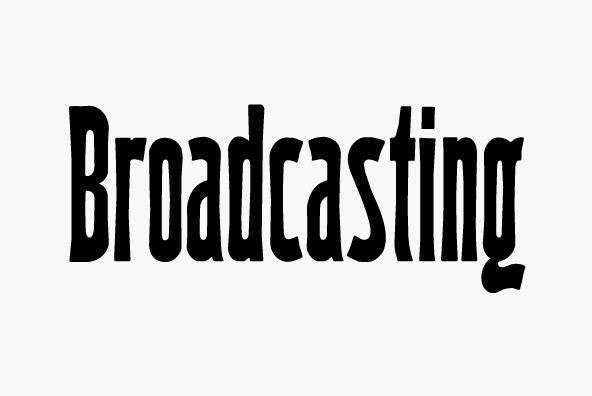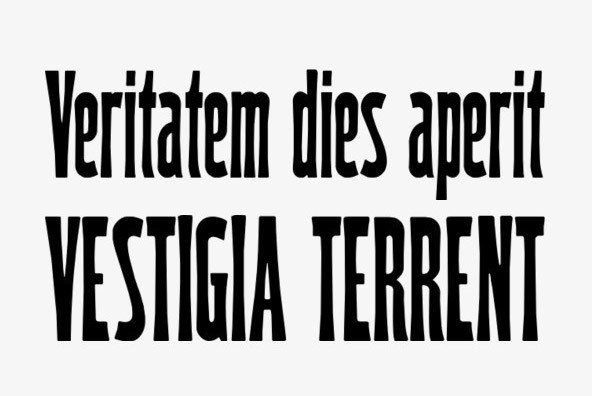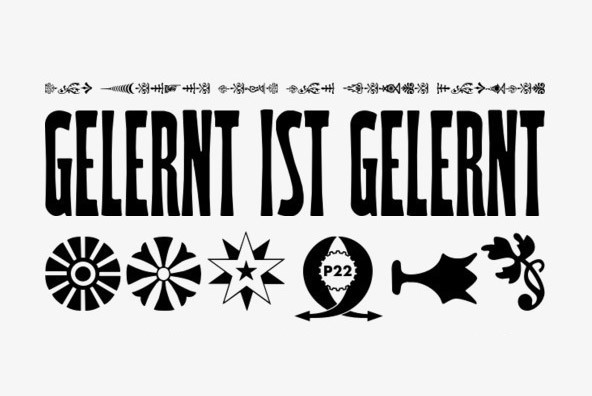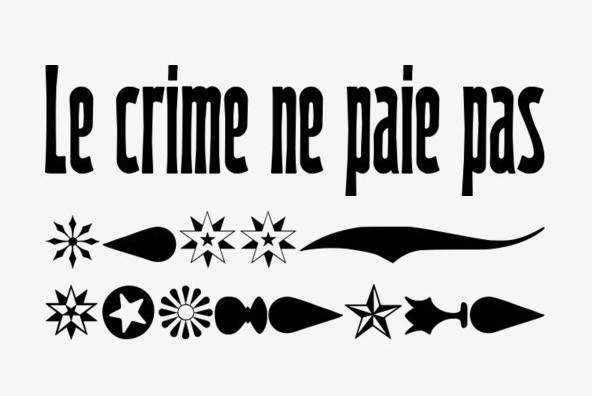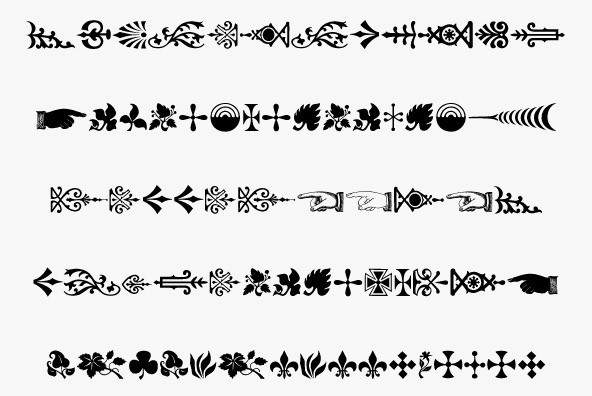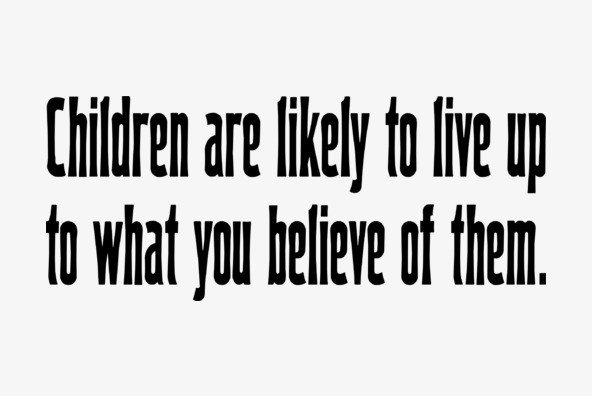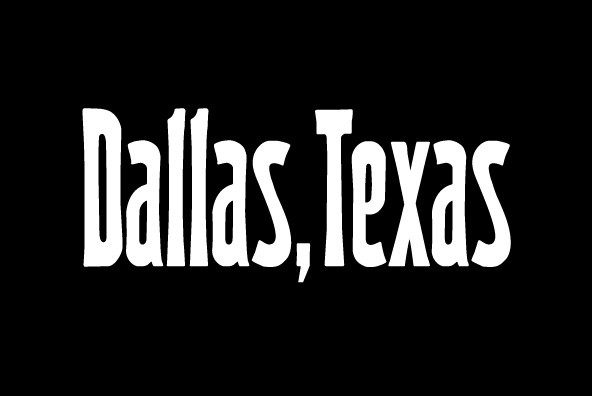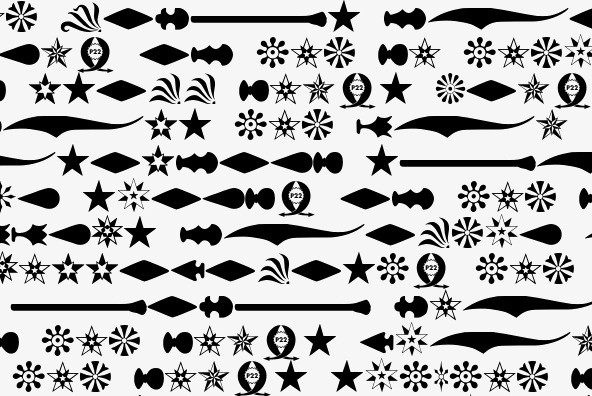
P22 Woodtype Set
Based on a rare specimen of an American Wood Types from the late 1800s, this condensed font conjures up 19th Century Americana but offers many potential design possibilities. The small caps font is based on a variation of the same basic design and was digitally modified to function as a small cap companion to the "regular" font. The exact origin and naming of 19th century wood-type is often confusing due to the hundreds of designs and variations offered. These fonts were originally made in wood by the William H. Page Type Company circa 1887. The main upper and lower case design was known as "15 line 513 Class M" and the small caps were based on "10 line No. 510" . The design is a condensed Tuscan with relatively subtle inward curves. An extra feature built into the digital P22 font is three sets of decorative brackets allowing for the creation of custom encapsulated words or phrases. To achieve the encapsulated brackets in WoodType and WoodType Small Caps use the () {} or [] keys to begin and end the word. When typing the word, follow each letter with the equals sign = i.e. [B=r=a=c=k=e=t=s]
Two fonts of "extras" are also included. The ornaments are based on some of the hundreds of wood type ornaments offered by the same companies that made the wood type alphabets. Included are over 150 linking borders, single words, pointing hands and other decorative elements.
The William H. Page Type Company was later acquired by The Hamilton Wood. Type company which still makes wood type to this day at The Hamilton Wood. Type Museum in Two Rivers Wisconsin.
Woodtype is a set of four fonts based on 19th Century American wooden printing types. Woodtype Regular is a condensed Tuscan styled font with a lower case and full international character set. Woodtype Small Caps is a variation of the regular with small caps in place of the lower case. Woodtype Extras One & Two feature over 150 decorative borders, stars, pointing hands & other decorative embellishments. Perfect for evoking 19th Century printing & Americana at its most genuine.